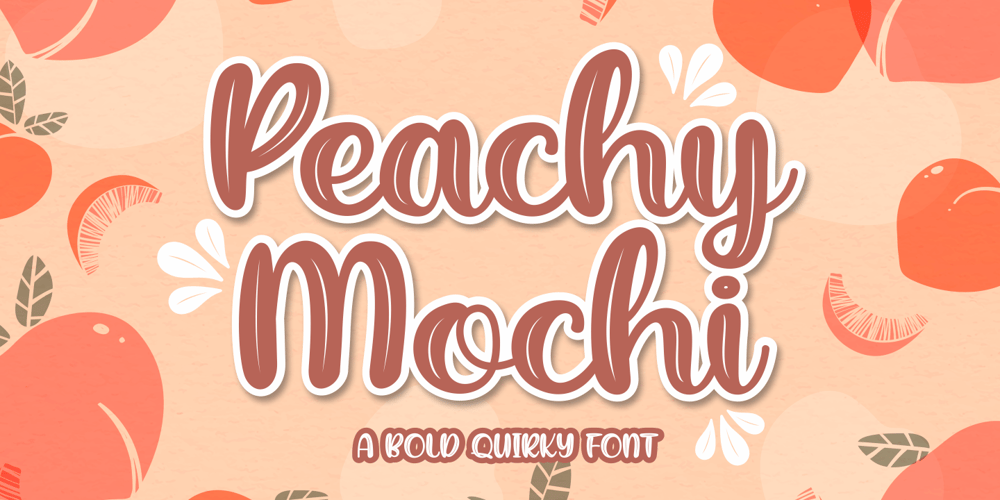
Peachy Mochi
Peachy Mochi font
Peachy Mochi Font Family was designed by Riyadh Abuhafs and published by Awan Senja. Peachy Mochi contains 1 styles and family package options. Introducing our newest cute typeface, Peachy Mochi, a Bold Quirky font. This font perfectly made to be in poster funny, and the other various formal forms such as invitations, labels, logos, magazines, books, packaging, fashion, make up, stationery, novels, labels or any type of advertising purpose.